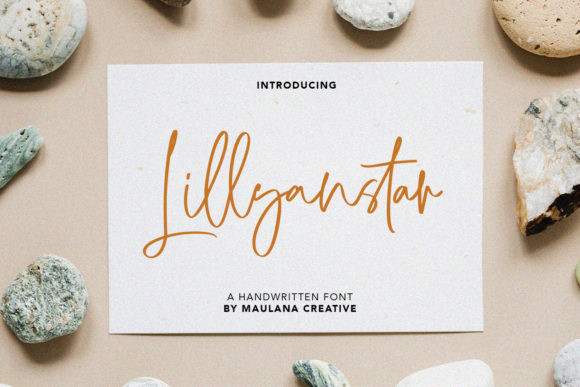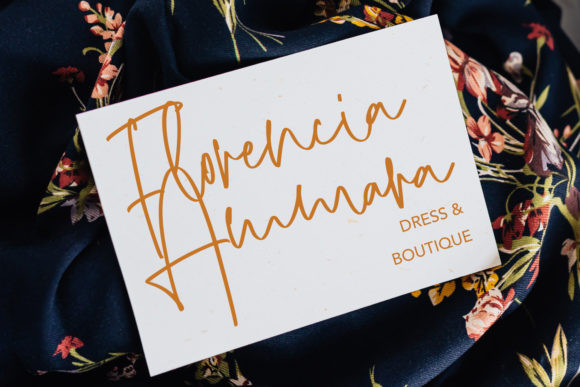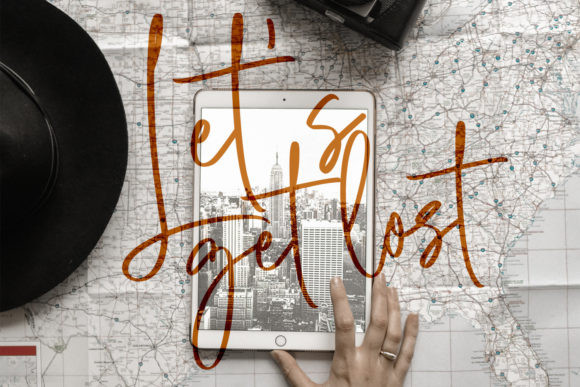
Lillyanstar Font
Lillyanstar is a beautiful and refined script font. It has a classy, elegant and modern look that can be used for logos, branding, invitations, stationery, wedding designs, social media posts, and much more!